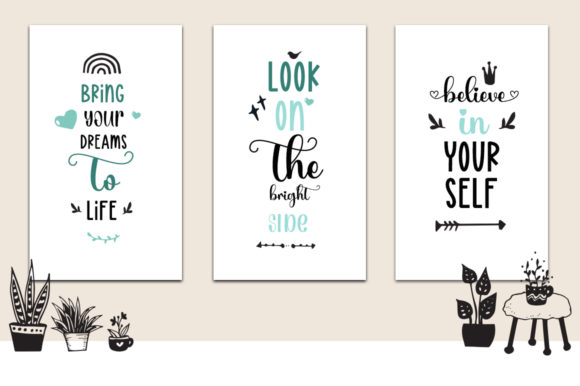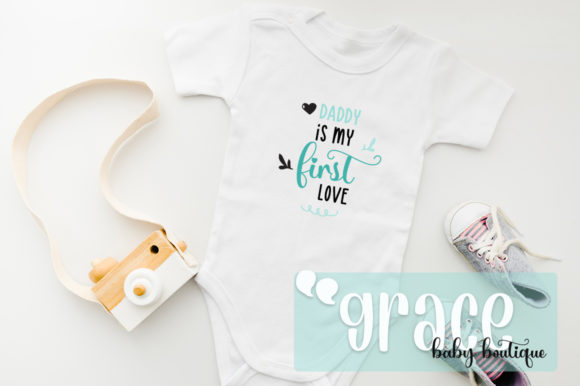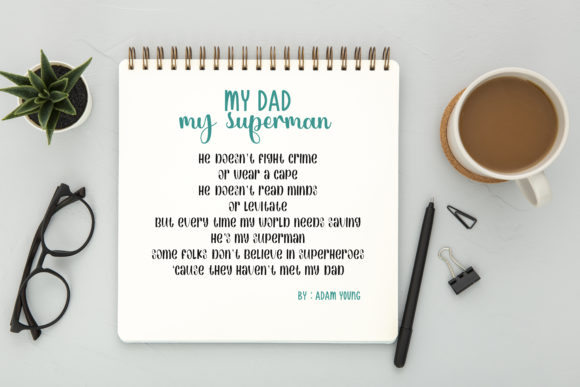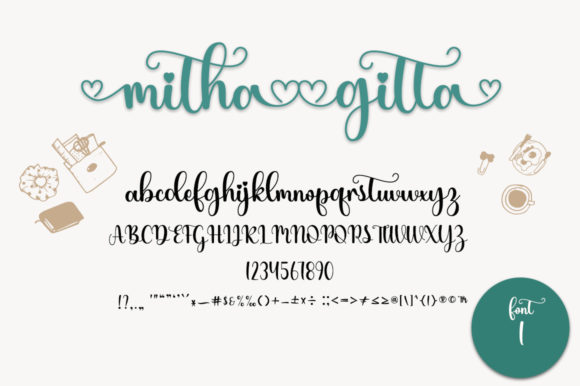
The Perfect Font for a Love Letter or a Headline: Diary Mithagitta Font
As a designer, there’s nothing quite like the thrill of bringing a project to life. Whether it’s a romantic wedding invitation or a bold headline for a magazine, the right font can make all the difference. And that’s exactly where the enchanting Diary Mithagitta Font comes in – a versatile script font that adds a touch of whimsy and romance to any design.
With its wide range of applications, from greeting cards to headlines, Diary Mithagitta Font is the perfect tool for designers looking to add a little extra magic to their work. And with its PUA encoding, accessing all of the beautiful glyphs and swashes is a breeze. Whether you’re a seasoned pro or just starting out, this font is sure to become a favorite in your design arsenal.
Diary Mithagitta Font Key Features
- Font Family: Diary Mithagitta is a unique, hand-drawn font with a personal and elegant touch.
- Unique Characteristics: The font features a distinctive, handwritten style with flourishes and imperfections, giving it a personal and artistic feel.
Diary Mithagitta Font Review
As a designer, I’ve had the pleasure of working with many fonts, but Diary Mithagitta is a unique one. ✨ The moment I laid eyes on it, I knew I had to give it a try. Here’s my honest review.
- ✨ Beautiful cursive script: The font’s flowing lines and gentle curves make it perfect for adding a touch of elegance to any design.
- ✨ Versatile: Whether you’re creating a wedding invitation, a birthday card, or a personal journal, Diary Mithagitta is a great choice.
- ✨ Easy to read: The font’s clear and legible, making it suitable for body text as well as headlines.
- ⚠️ Limited font weights: Diary Mithagitta only comes in a few font weights, which might limit its use in certain design contexts.
- ⚠️ Not suitable for small text: The font’s cursive script can become difficult to read when used in small text sizes.
Diary Mithagitta is a lovely font that’s perfect for adding a touch of whimsy to your designs. While it has some limitations, its unique style and versatility make it a great addition to any font collection.
Diary Mithagitta Font is perfect for creating elegant and sophisticated designs. To get the most out of it, use it in combination with soft colors and subtle textures.
Also, experiment with different font sizes and styles to create visual interest and emphasis.
Diary Mithagitta Font is ideal for:
Formal event invitations
Book covers and interior design
High-end branding and marketing materials